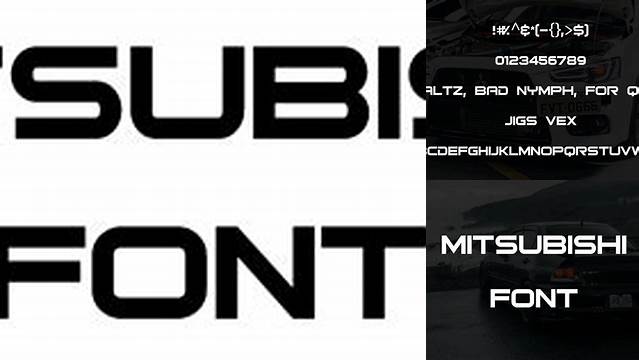
Free Mitsubishi Font: Find Similar Styles & Alternatives
Are you looking to download Mitsubishi fonts for free? You've come to the right place! This guide dives deep into everything you need to know about finding, downloading, and using Mitsubishi-style fonts in your projects. Whether you're working on a presentation, creating marketing materials, or just experimenting with typography, understanding the nuances of these fonts is crucial. Let's explore the world of Mitsubishi fonts and how you can access them without breaking the bank.
Understanding Mitsubishi Fonts
Mitsubishi fonts are often associated with the corporate branding and visual identity of the Mitsubishi Group, a multinational conglomerate. These fonts are typically designed to convey a sense of reliability, precision, and technological advancement. While the official Mitsubishi fonts are proprietary and not freely available for download, numerous similar fonts capture the essence of their style. These fonts often feature clean lines, geometric shapes, and a modern aesthetic, making them suitable for various applications. Understanding the characteristics of the official Mitsubishi fonts will help you identify suitable alternatives and use them effectively in your designs.
The typical characteristics include:
- Clean Lines: Mitsubishi fonts tend to have very crisp and clean lines. This gives them a modern and professional look, making them suitable for corporate communications and branding materials.
- Geometric Shapes: The use of geometric shapes is another common trait. Letters might be constructed from perfect circles, squares, and triangles, lending a sense of precision and order.
- Modern Aesthetic: These fonts usually have a contemporary feel, avoiding overly ornate or decorative elements. This aligns with Mitsubishi's image as a forward-thinking and innovative company.
- Sans-Serif Style: More often than not, Mitsubishi-related fonts are sans-serif. This means they lack the small decorative strokes (serifs) at the end of letterforms, contributing to their clean and modern appearance.
- Boldness and Clarity: The fonts are designed to be easily readable, even from a distance or in smaller sizes. This is achieved through careful attention to letter spacing, weight, and overall clarity.
- Technological Look: They often evoke a sense of technology and engineering. This can be achieved through specific design choices such as sharp angles or a futuristic appearance.
When selecting a Mitsubishi-style font, consider the overall tone and message of your project. A font that is too generic may not capture the unique essence of the Mitsubishi brand, while a font that is too stylized may detract from the clarity and readability of your text. Experiment with different options and choose the one that best complements your design.
Finding Free Mitsubishi-Style Fonts
Another avenue to explore is open-source font projects. These projects often create high-quality fonts that are free to use and distribute. Look for open-source fonts that align with the geometric and modern style of Mitsubishi fonts. Websites like GitHub can be valuable resources for finding these projects. Be sure to check the licensing terms of any open-source font you download to ensure that it is suitable for your intended use.
Finally, be cautious when downloading fonts from unknown or untrusted sources. These fonts may contain malware or viruses that can harm your computer. Always download fonts from reputable websites and scan the files with an antivirus program before installing them. Additionally, be aware of the licensing terms of any font you download. Some fonts may be free for personal use but require a commercial license for business purposes. Failing to comply with these terms can result in legal consequences.
Top Free Font Alternatives
While an exact free Mitsubishi font download might be elusive, several excellent free font alternatives capture the essence of the Mitsubishi style. These fonts share similar characteristics such as clean lines, geometric shapes, and a modern aesthetic. Here are some top contenders:
Finding a free Mitsubishi font download might take some effort, but by understanding the characteristics of these fonts and exploring the available resources, you can find excellent alternatives that meet your needs. Remember to prioritize reputable sources, be mindful of licensing terms, and always scan downloaded files for potential security threats. With a little research and diligence, you can enhance your projects with stylish and professional fonts without breaking the bank. Happy designing, guys!